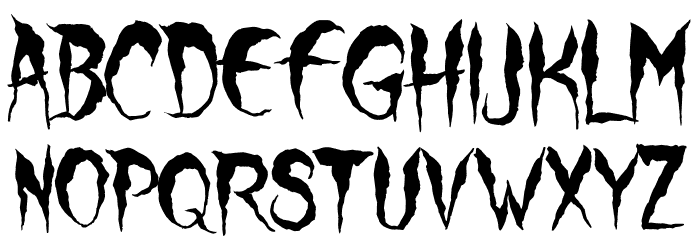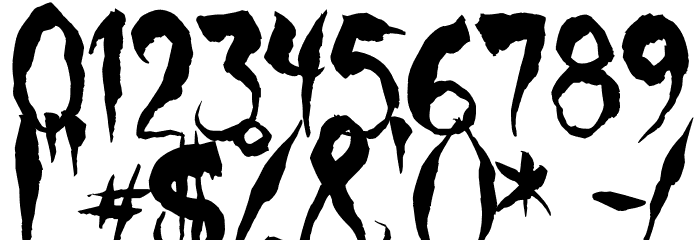
Wolf Moon Font
This font features a bold and jagged design, reminiscent of claw marks or rough brush strokes. The characters have an irregular and wild appearance, with sharp edges and varying thickness, creating a sense of movement and energy. The uppercase and lowercase letters maintain a consistent style, with exaggerated serifs and pointed terminals. Numbers and special characters follow the same dynamic aesthetic, making the font suitable for themes that require a raw and untamed look. The overall impression is one of intensity and drama, ideal for projects that aim to capture attention and convey a sense of edginess.
A bold, jagged font with sharp edges and a wild, energetic style.
- Font: Wolf Moon
- Proposed Projects: Ideal for horror-themed posters, edgy branding, album covers, and Halloween decorations.